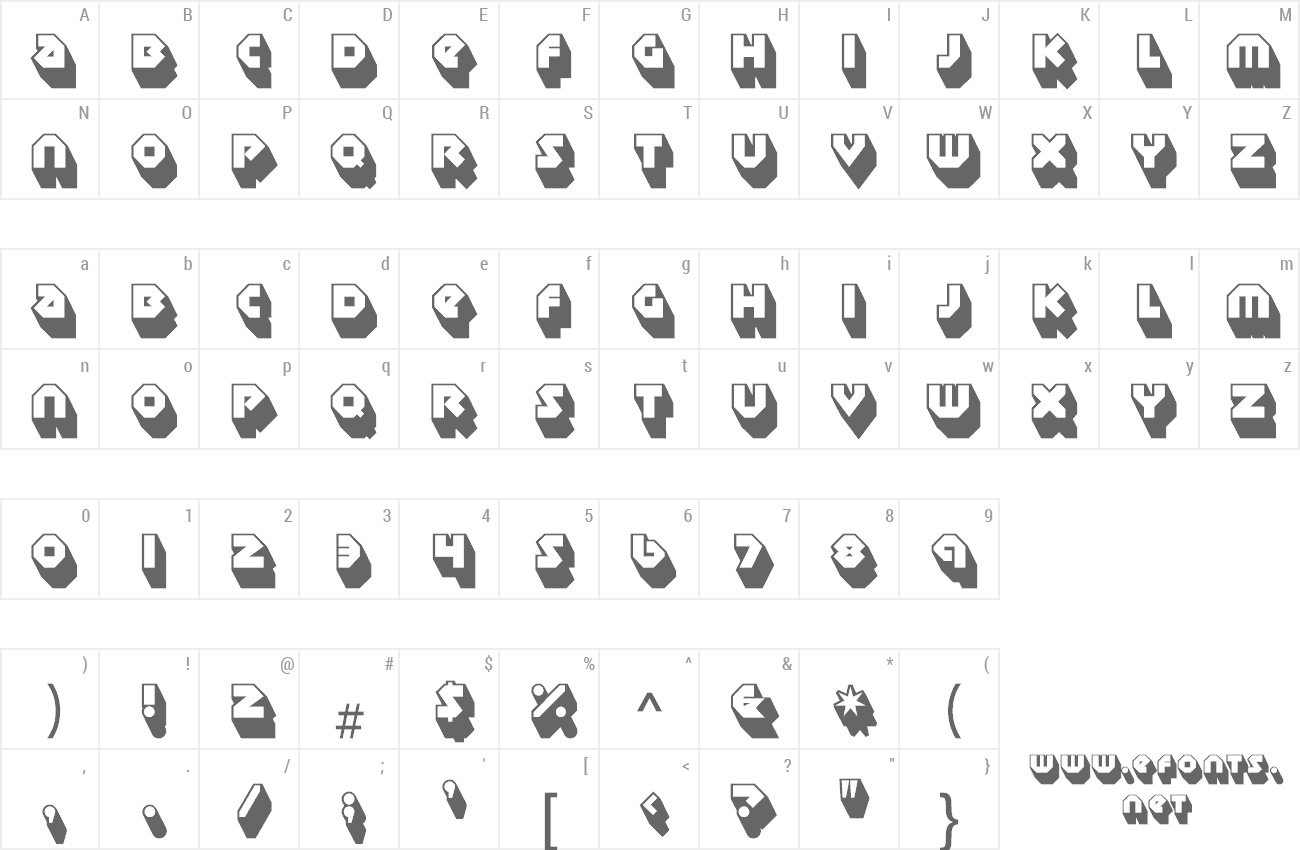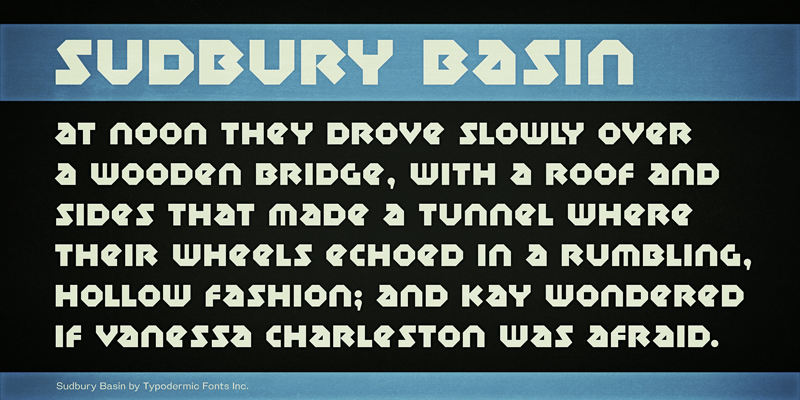
Sudbury Basin is an uncomplicated, octagonal industrial logo font. This font includes a license that allows free commercial use: sometimes referred to as a desktop license. This allows you to install the font on a computer and use it to create posters, web graphics, game graphics, t-shirts, videos, signs, logos and more. Read the license agreement for details. If you'd like to embed this font in an app, ebook, on the web or anything that's not covered by the desktop license agreement, visit the link below. You'll find distributors who offer different types of licenses or you can contact me for help. http://typodermicfonts.com/sudbury-basin/ |